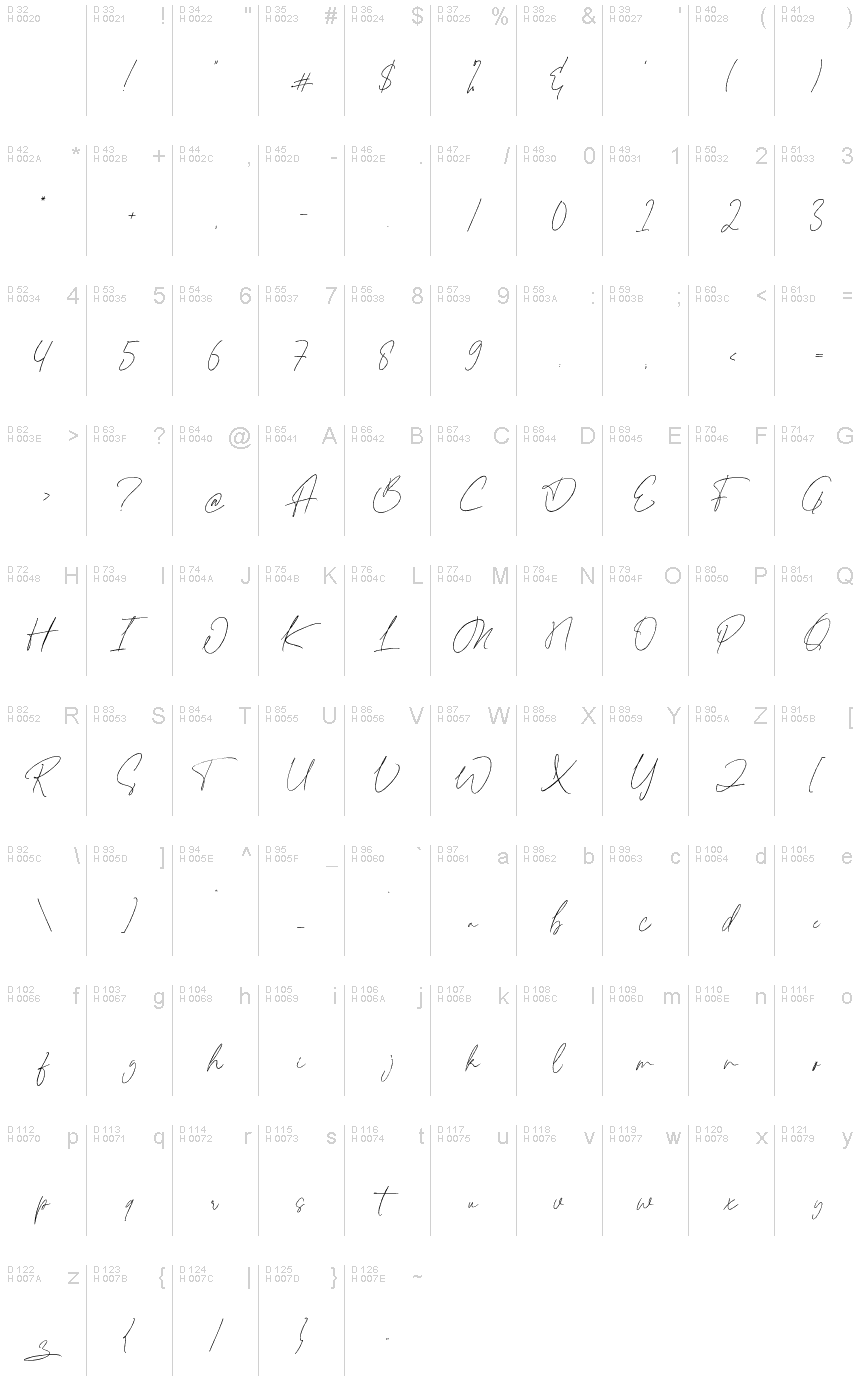
AbelisaCostland
Introducing Abelisa Costland, a thin handwritten font designed by Thanoestd. Perfect for creating unique logos, hand-crafted designs and signature-style text, it can also be used to add a personal touch to invitations and greeting cards.